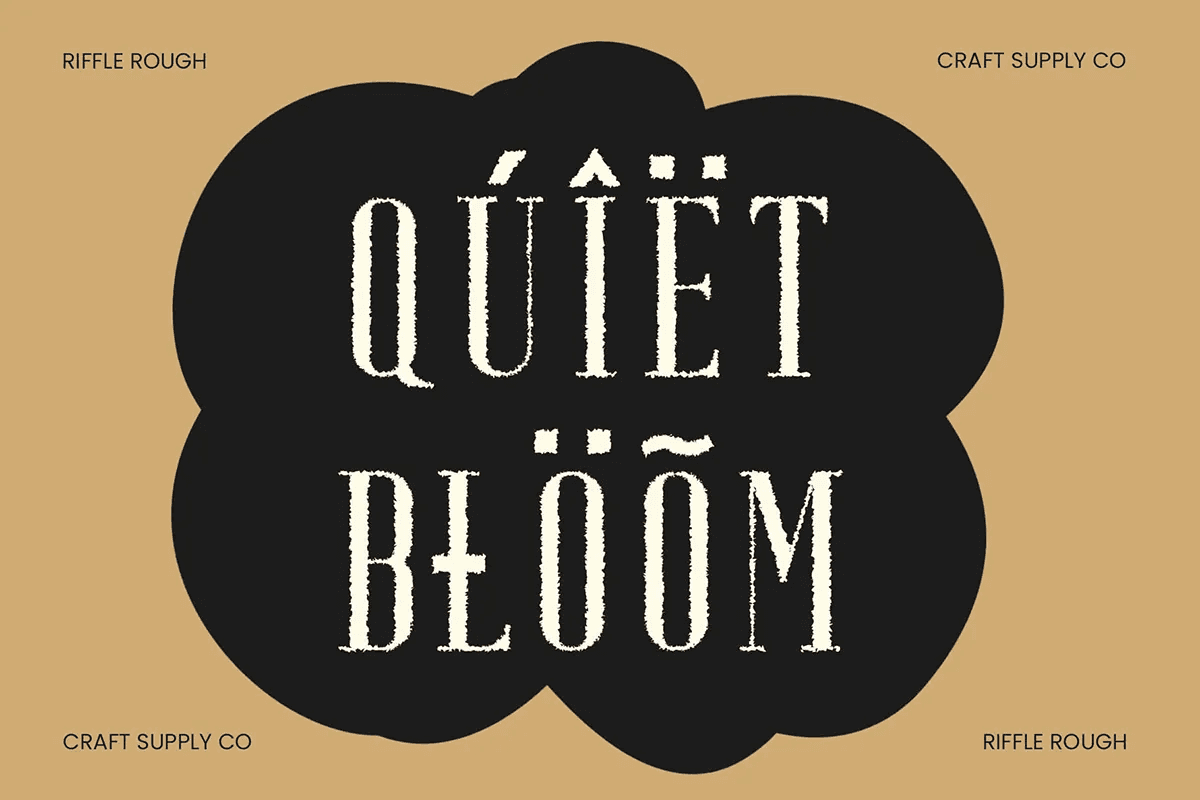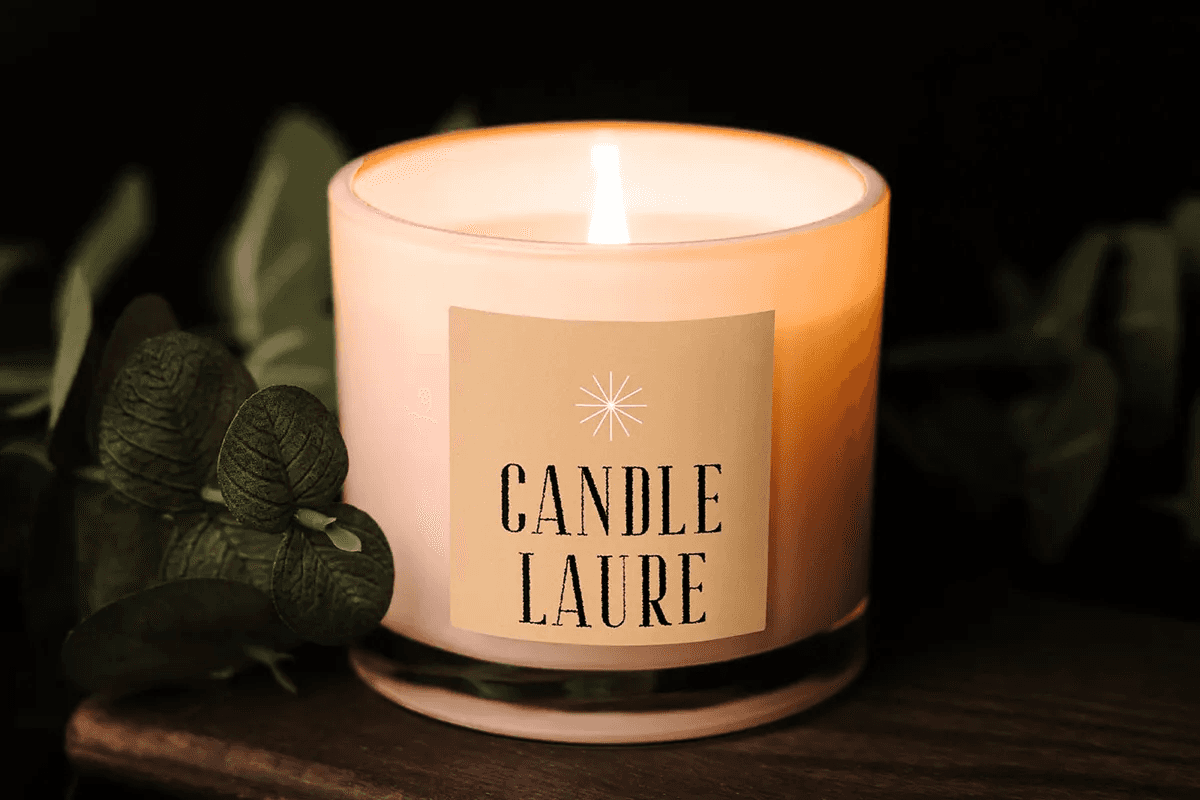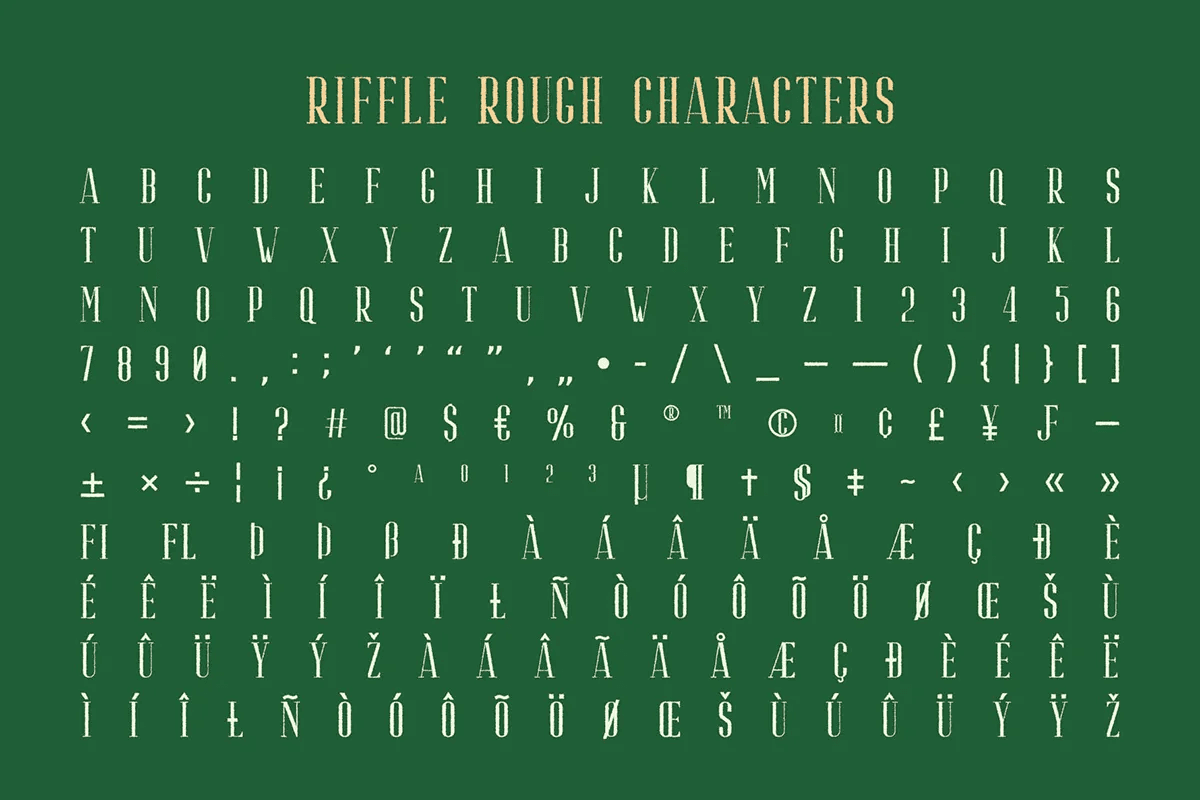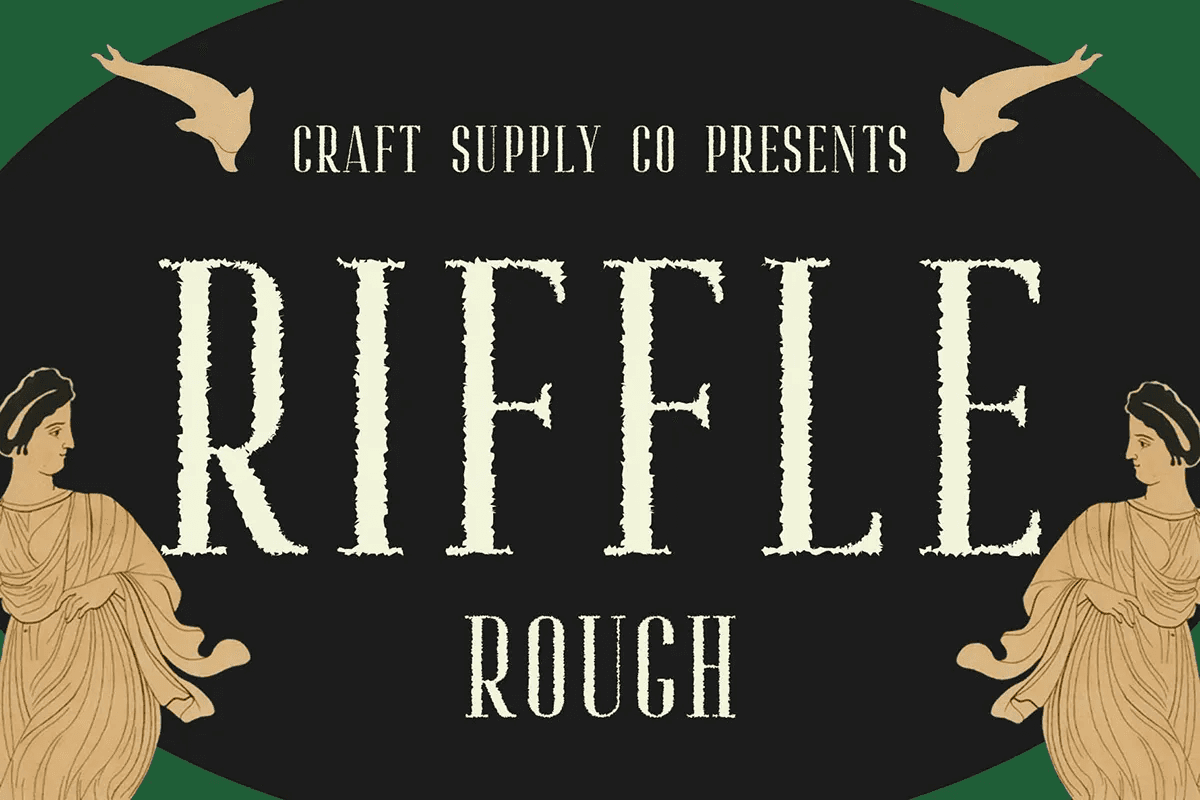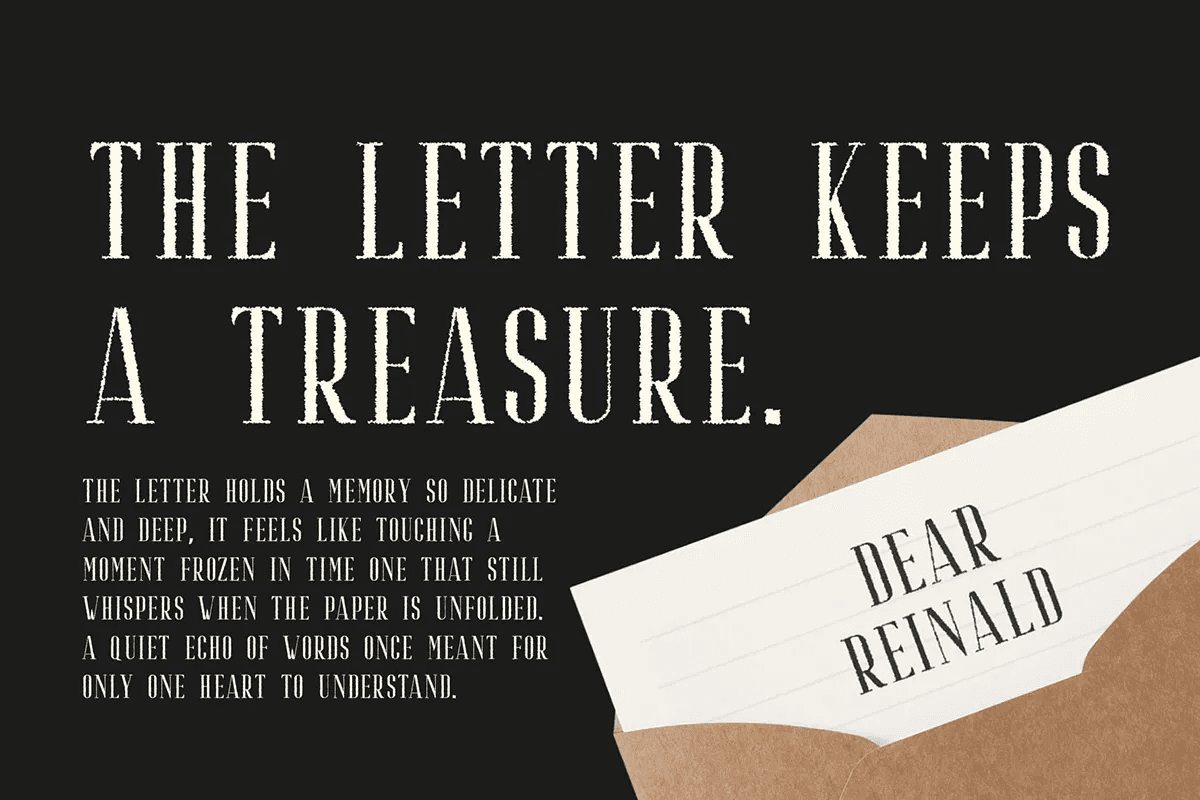
Riffle Rough – Display Font is a modern serif font featuring clean, sleek, and condensed letterforms that exude timeless sophistication. Its minimalist design captures the essence of elegance while maintaining a professional appearance, making it perfect for high-end, refined projects. It balances modern precision with vintage-inspired texture, offering a sophisticated and captivating look that suits a wide range of professional and creative needs. It’s the ideal choice for designers seeking a refined font with depth and character.